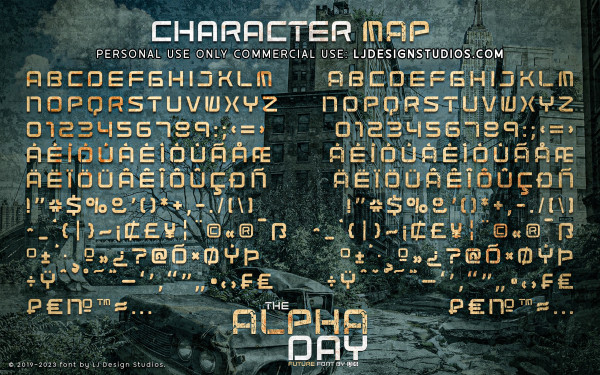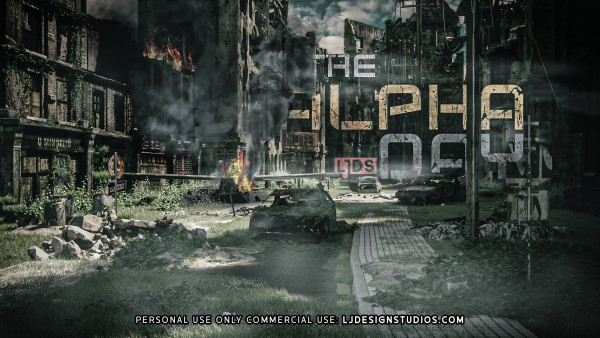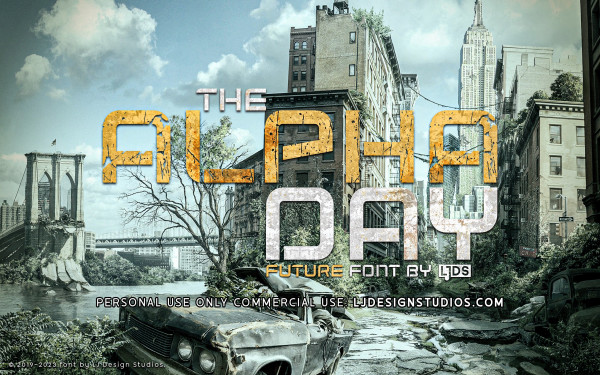
The Alpha Day Font
The Alpha day Font named after performing a level of operations was massive typographic design on March 14, 2019 a futuristic typography with a rather mysterious style.
Two sibling styles to complement good design compositions.
With a restoration in 2023 we have improved the presentation of both versions of the font family.
Regular: More technical and cleaner with changes in some glyphs.
Grunge: More noticeable and better looking texture.
With these improvements, the manipulation processes, especially in Adobe Photoshop, are very precise and real. as can be seen in the example images.